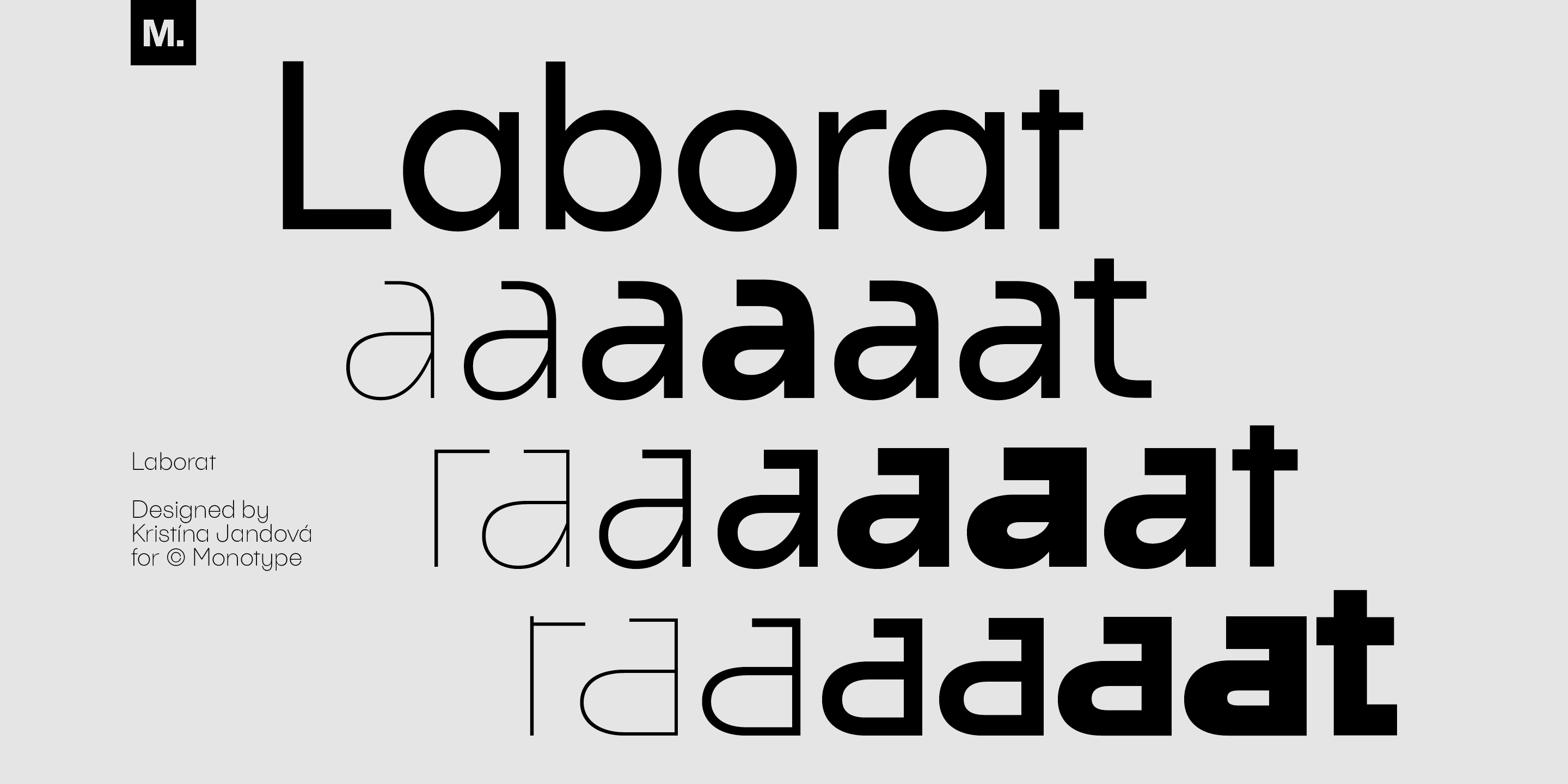
Laborat Font is ideal for branding, posters, digital interfaces, and editorial design. Its Grotesk style, blending circular and square geometry, excels in logos, website headers, and advertising materials requiring a modern, clean aesthetic.
Why is Laborat Font exciting? Designed by Kristína Jandová, its playful geometric modifications and stylistic sets create a dynamic, visually engaging “graphic” language, inspired by Paul Renner’s Futura sketches.
The Laborat Font family includes six styles: Regular, Medium, Bold, Heavy, and their respective alternates, offering versatile options for creative projects.